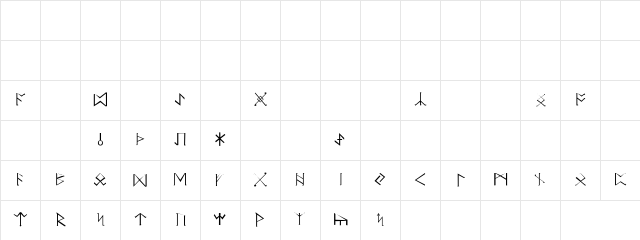
Elder Futhark ver 1.1 Regular
Design Context for Elder Futhark ver 1.1 Typeface
Elder Futhark ver 1.1 offers clean, dependable letterforms without strong stylistic allegiance, making it a practical choice for designers who need flexibility.